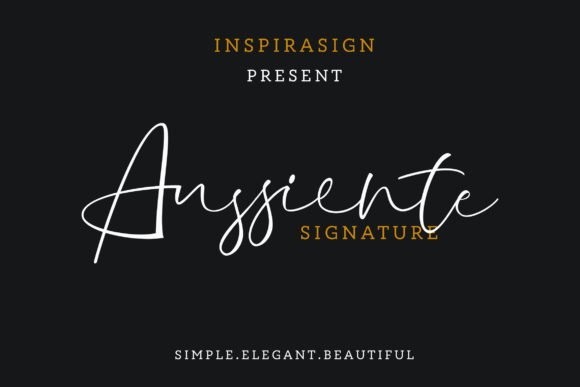
Introduction to Aussiente Font
The Aussiente is a classic signature font.
It was inspired by classic posters and is perfect for logos, letterheads, posters, apparel, labels, and much more .
Aussiente Font offers exceptional quality and versatility, making it a valuable addition to your design toolkit. Whether you’re creating for personal projects or commercial use, Aussiente Font delivers professional results.